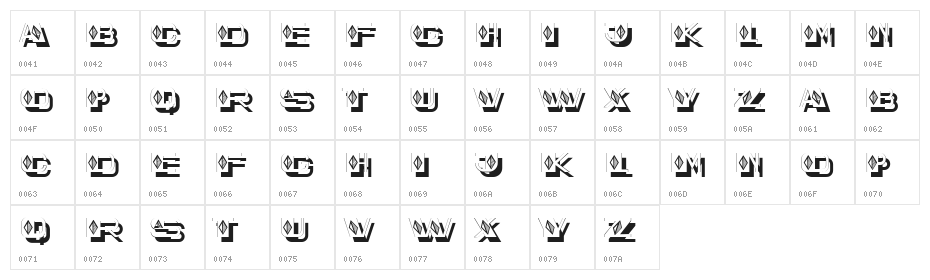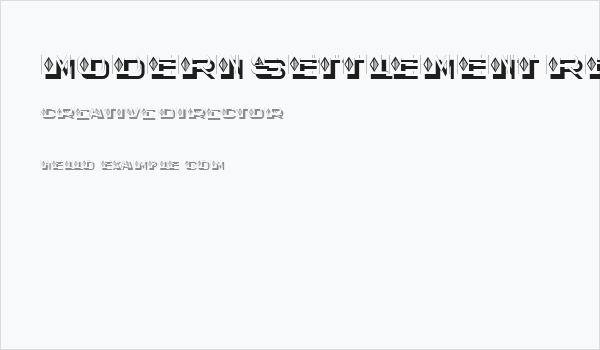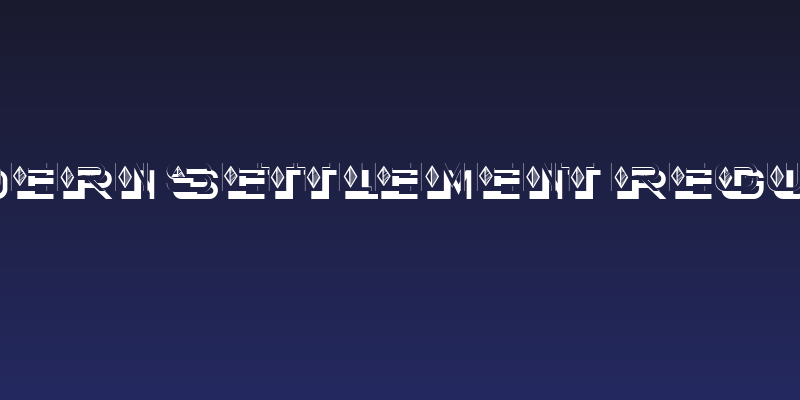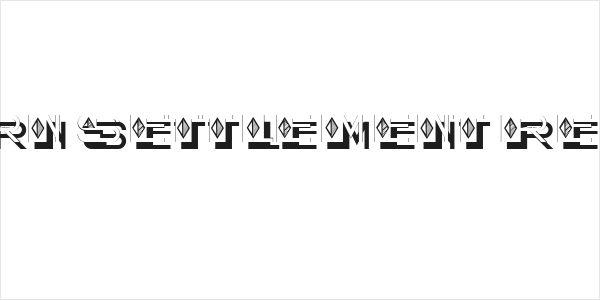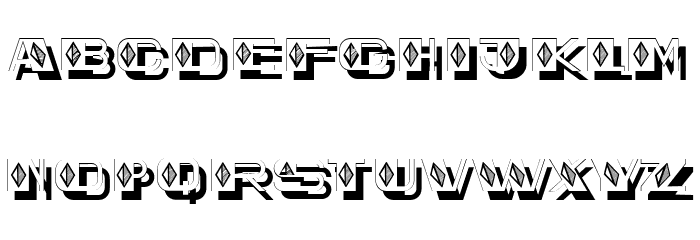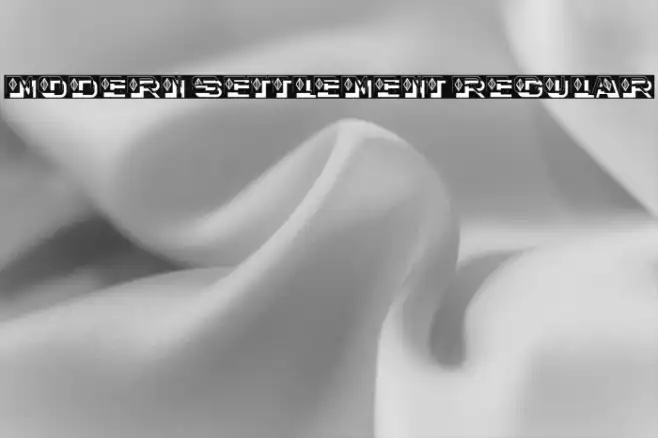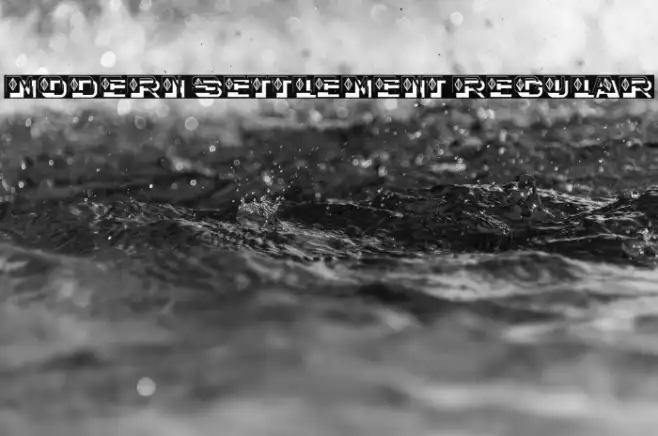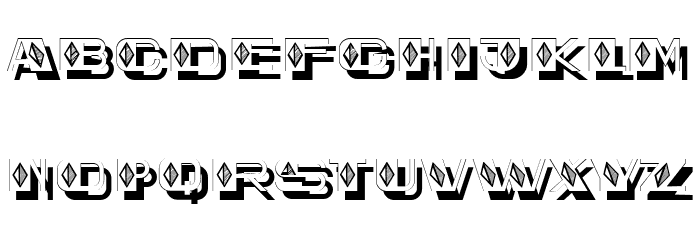
Modern Settlement Regular Font
Modern Settlement Regular Description
This font features a bold and striking design with a modern, geometric aesthetic. Each character is crafted with sharp angles and distinct cutouts, creating a sense of depth and dimension. The uppercase letters exhibit a strong presence, while the lowercase letters maintain a consistent style. The numerals are equally bold, ensuring readability and impact. Special characters are designed to match the overall theme, adding versatility to the font. The unique style makes it suitable for projects that require a contemporary and eye-catching look.
| Proposed Projects | Ideal for branding, posters, headlines, and any design needing a modern, impactful typeface. |